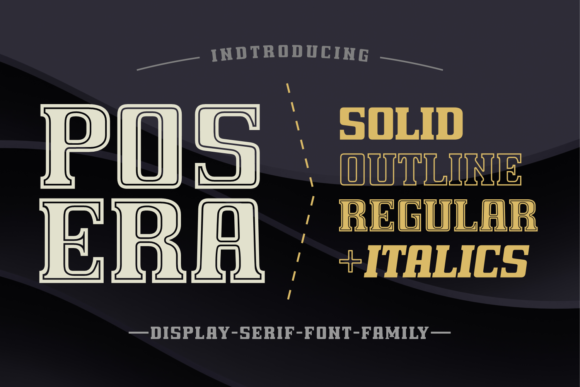
Introducing Pos Era Font - A Bold and Authentic Expression of Creativity!
At Jasm (7NTypes), we believe in the power of fonts to transform ordinary designs into remarkable expressions of art. Our Pos Era Font is a bold and authentic display font that will add a touch of elegance and sophistication to your creative projects.
Unleash your imagination and dive into a world of possibilities with Pos Era. Whether you're creating captivating posters, eye-catching product packaging, or heartfelt invitations, our font will elevate your designs to new heights. Each carefully crafted glyph carries a story, inviting your audience to connect with your message on a deeper level.
Visualize your words taking center stage with Pos Era's commanding presence. Its bold strokes and dynamic curves exude a sense of confidence and authority, making every word a statement. Elevate your brand identity, enhance your marketing materials, or create stunning quotes that resonate with your audience.
But it's not just about looks - Pos Era is also incredibly versatile. With its wide range of stylistic alternatives, ligatures, and alternates, you can customize your designs to perfectly match your vision. Whether you prefer a classic, timeless aesthetic or a more contemporary, cutting-edge look, Pos Era has got you covered.